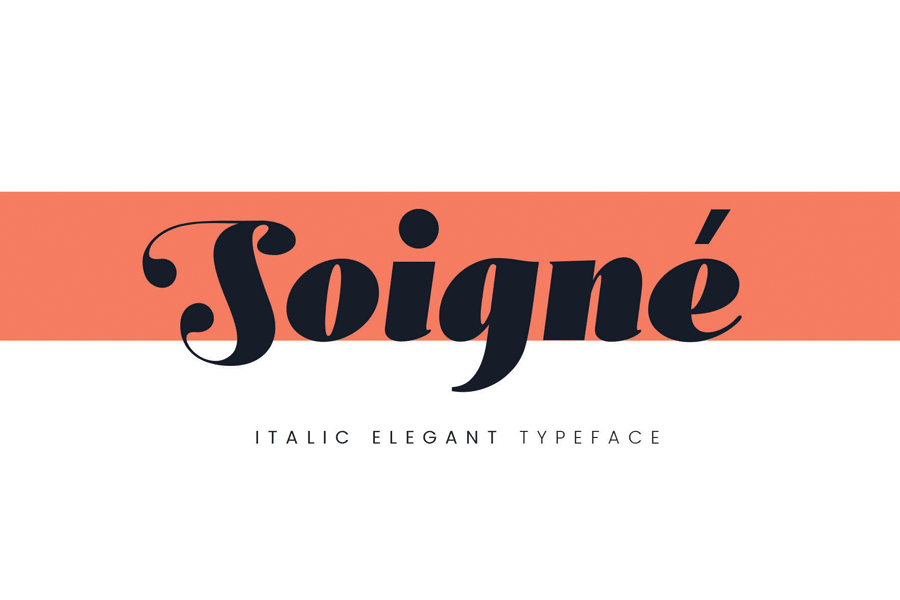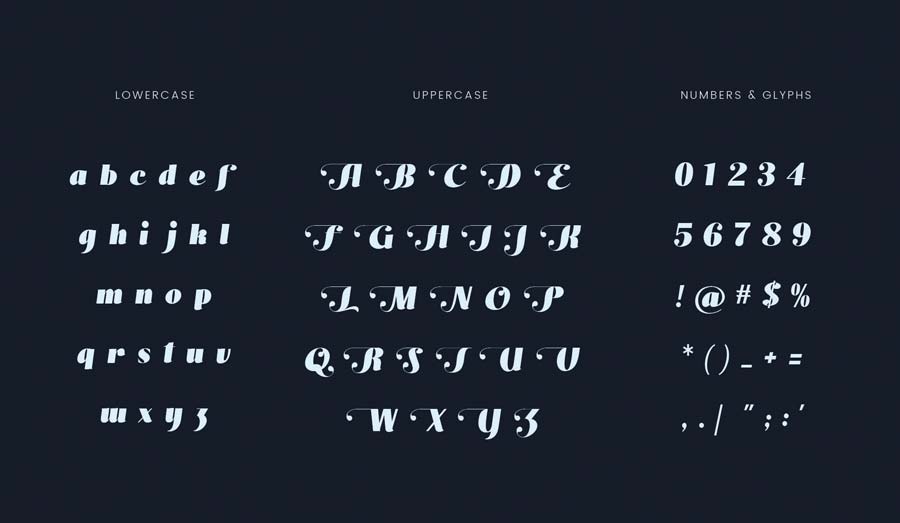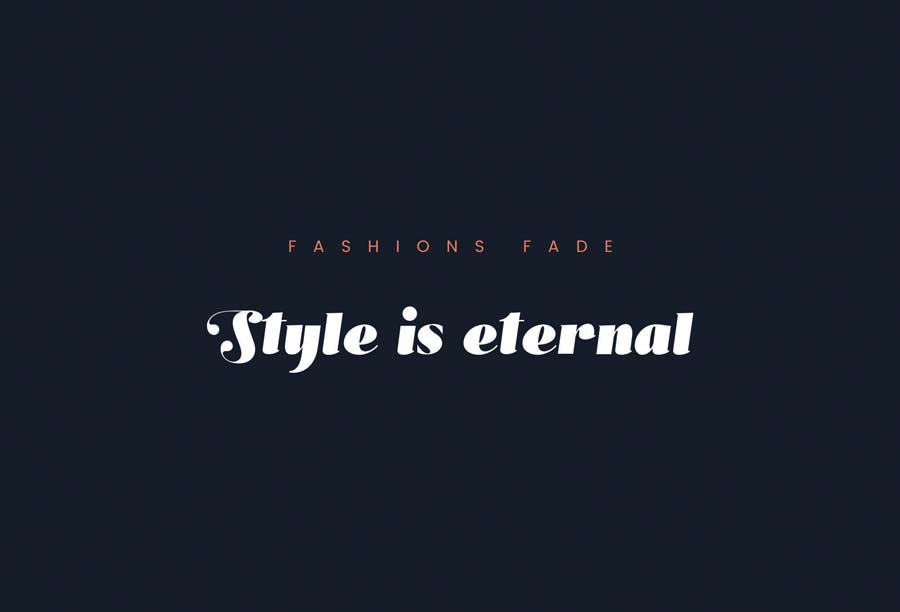
Soigné is an italic elegant font made perfect for design themes related to modern fashion, high culture and art. It is slightly slanted, and has very high contrast between vertical and horizontal strokes.
This font comes with lowercases, uppercases, numbers and common symbols. The uppercase letters especially features elaborative swashes, further enhances the elegancy of the font.